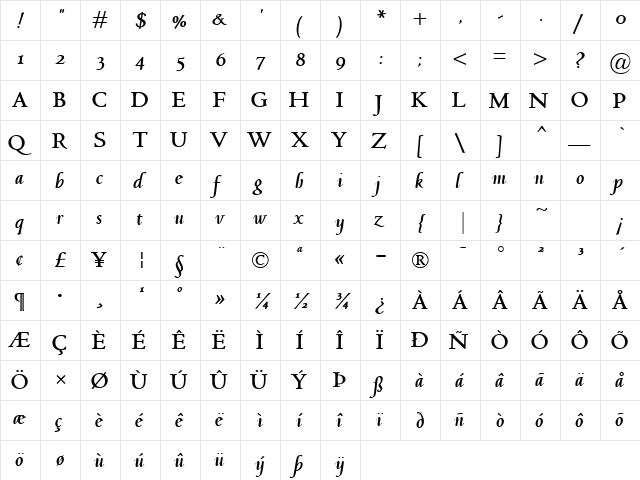
Jenson Classico BoldItalic Font Preview
Design Context for Jenson Classico Typeface
Jenson Classico wears its vintage influences proudly, with letterforms that recall mid-century signage, classic packaging, and nostalgia-driven design. The dynamic lean of this cut emphasises speed and emphasis in any layout. The heavy weight commands attention and anchors typographic hierarchies.
Perfect for vintage-inspired branding, retro packaging, nostalgia campaigns, and period-accurate editorial design.
Font Pairing: Combine Jenson Classico with a simple slab or neutral sans — period-accurate companions reinforce the vintage feel without competing for attention.
Pro Tip: Use Jenson Classico for headlines and pull quotes rather than body copy — its personality is best appreciated in short, focused bursts.